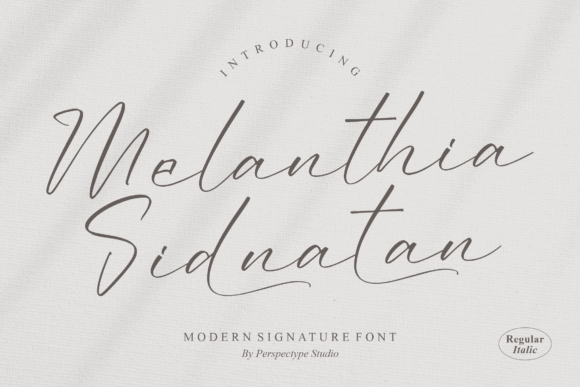
Feast your eyes on Melanthia Sidnatan, the calligraphic masterpiece conjured by Perspectype. This script font is an exquisite blend of allure and refinement, leaving an indelible mark on your creative expressions. It's the perfect choice for adding a personal touch to wedding invitations, conveying heartfelt gratitude with thank-you cards, or crafting evocative quotes that resonate with your audience.
Melanthia Sidnatan's delicate strokes dance across the page, captivating the senses with their grace and elegance. It's a font that elevates your words, transforming them into works of art. Picture your wedding invitations adorned with Melanthia Sidnatan's enchanting characters, each letter flowing seamlessly into the next like a whispered promise. Your guests will be captivated by the beauty of the font, setting the tone for an unforgettable celebration.
Melanthia Sidnatan's versatility extends beyond wedding invitations. Its charm shines through in thank-you cards, adding a touch of warmth and sincerity to your expressions of gratitude. Use it to create heartfelt messages that convey your appreciation, leaving a lasting impression on the recipients. Melanthia Sidnatan breathes life into quotes, transforming them into visual poetry. Its expressive strokes capture the essence of your words, making them leap off the page and into the hearts of your readers.
For logo designers seeking a font that exudes elegance and sophistication, Melanthia Sidnatan is the perfect choice. Its timeless appeal adds a touch of class to your designs, creating logos that stand the test of time. Business cards crafted with Melanthia Sidnatan make a striking impression, conveying professionalism and attention to detail. The font's intricate details add a touch of intrigue, inviting potential clients to explore your brand further.
Immerse yourself in the world of Melanthia Sidnatan, a font that weaves magic into your creative endeavors. Its enchanting characters will captivate your audience, leaving them spellbound by the beauty of your words. Experience the transformative power of Melanthia Sidnatan today and elevate your designs to new heights.